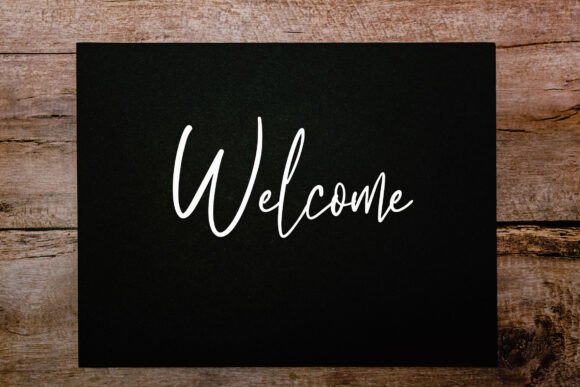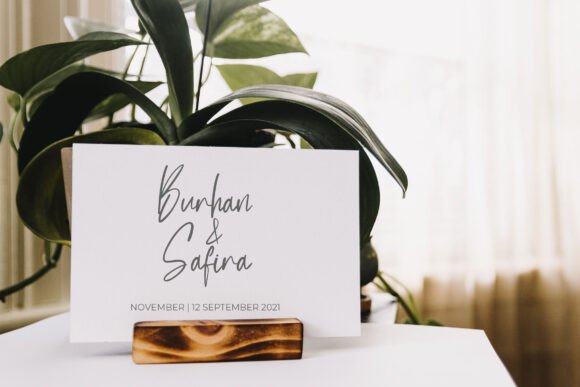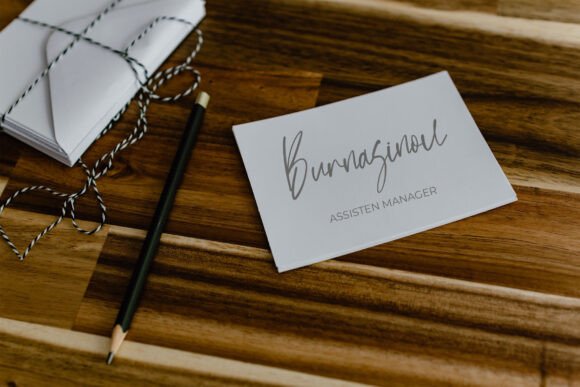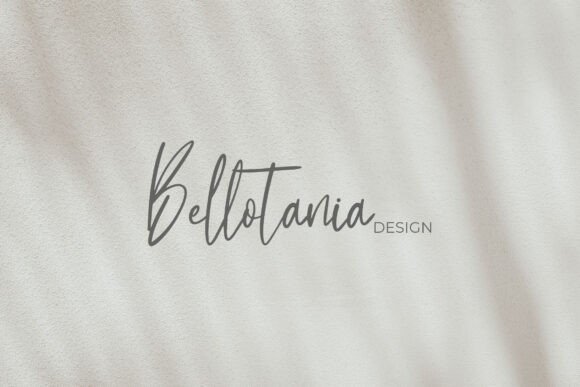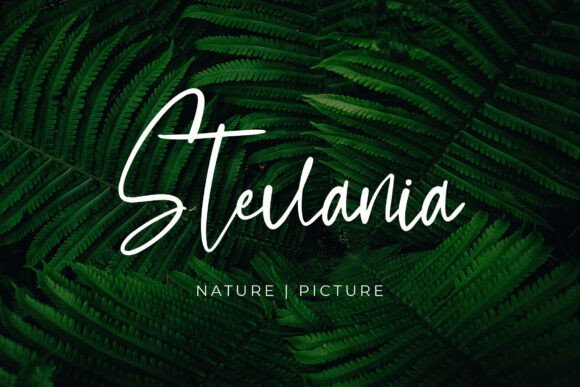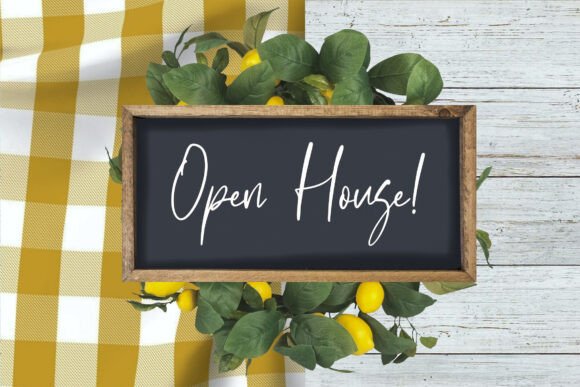
Burkellia Font: Elevate Your Designs with Elegant Handwriting Style
In the world of typography, fonts play a crucial role in conveying the tone and personality of a design. For designers and crafters looking to add a personal touch to their projects, Burkellia font is an excellent choice. This beautiful script font boasts a natural handwriting style that can instantly elevate the visual appeal of your designs.
What is Burkellia Font?
Burkellia is a stunning script font that exudes elegance and sophistication. Its unique character shapes are designed to mimic the fluidity of handwriting, making it perfect for a wide range of applications, from logos and branding to invitations and more. With Burkellia, you can add a touch of personality to your designs, setting them apart from the rest.
Key Features of Burkellia Font
• Natural Handwriting Style: Burkellia’s handwriting style is designed to look natural and effortless, giving your designs a personal and authentic feel.
• Unique Character Shapes: The font’s unique character shapes make it stand out from other script fonts, ensuring your designs are visually appealing and engaging.
• Elegant and Sophisticated: Burkellia’s elegant and sophisticated style makes it perfect for high-end designs, such as luxury branding and wedding invitations.
• Versatile: This font can be used for a wide range of applications, from digital designs to print materials.
Why Choose Burkellia Font?
With so many fonts available, why choose Burkellia? Here are a few compelling reasons:
• Adds a Personal Touch: Burkellia’s handwriting style adds a personal touch to your designs, making them more relatable and engaging.
• Enhances Visual Appeal: The font’s unique character shapes and elegant style enhance the visual appeal of your designs, making them more stylish and authentic.
• Easy to Read: Despite its elegant style, Burkellia is easy to read, making it perfect for body text and headings.
• Supports Multiple Languages: This font supports multiple languages, making it a great choice for designers working on international projects.
Using Burkellia Font in Your Designs
So, how can you use Burkellia font in your designs? Here are a few ideas:
• Logos and Branding: Use Burkellia to create stunning logos and branding materials that reflect your brand’s personality.
• Invitations and Stationery: Add a touch of elegance to your invitations, wedding cards, and stationery with Burkellia.
• Digital Designs: Use Burkellia in your digital designs, such as social media graphics, blog posts, and email newsletters.
• Print Materials: This font is also perfect for print materials, such as brochures, flyers, and posters.
Tips for Getting the Most Out of Burkellia Font
To get the most out of Burkellia font, here are a few tips:
• Experiment with Font Sizes: Play around with different font sizes to find the perfect balance for your design.
• Pair with Other Fonts: Burkellia pairs well with other fonts, so don’t be afraid to experiment with different combinations.
• Use it Sparingly: While Burkellia is a beautiful font, it’s best to use it sparingly to avoid overwhelming your design.
In conclusion, Burkellia font is a stunning script font that can add a personal and elegant touch to your designs. With its natural handwriting style, unique character shapes, and versatile nature, Burkellia is perfect for a wide range of applications. Whether you’re a designer or crafter, this font is sure to elevate your designs and give them a stylish and authentic look.